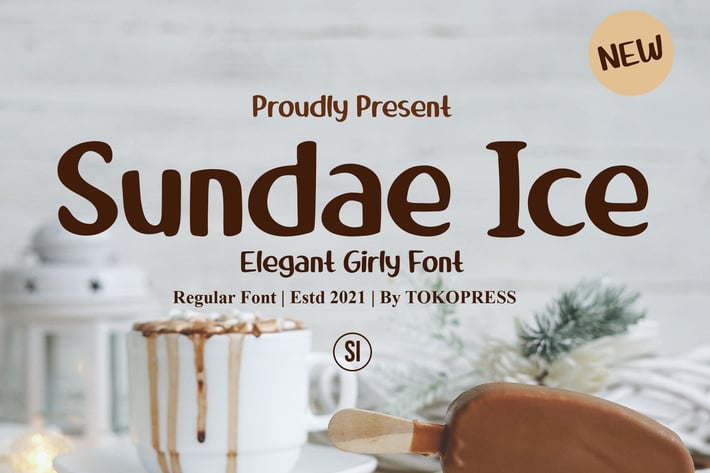
Sundae Ice - Handwriting Travel font
Sundae Ice - Feminine Casual Typeface
Sundae Ice is a casual handwriting script font with soft rounded edges, smooth curves, and a natural flow—crafted for creators who want a friendly and joyful visual tone. Its handwritten aesthetic strikes the perfect balance between playful and elegant, making it ideal for Instagram captions, vlogs, beauty branding, and lifestyle packaging. The font’s visual rhythm mimics real handwriting with light variations, low contrast strokes, and organic shapes, giving it a modern-yet-warm vibe that feels approachable and expressive.
Whether you're designing YouTube thumbnails, Pinterest quotes, cosmetic packaging, or a travel storybook, Sundae Ice delivers charm and clarity in one delightful scoop. Its casual confidence shines through in lifestyle projects that need a soft emotional touch—perfect for beauty influencers, stationery brands, kid apparel designers, and feminine e-commerce stores looking to add personality to their visuals.
Key Features :
✔ Friendly, Organic Letterforms
Crafted to look like real handwriting—perfect for brands with a personal, down-to-earth message.
✔ Great for Print and Screen
Clear and legible on packaging, mobile UI, digital stories, and printed products.
✔ Versatile Aesthetic
Combines casual softness with professional polish—ideal for editorial, branding, and promotional media.